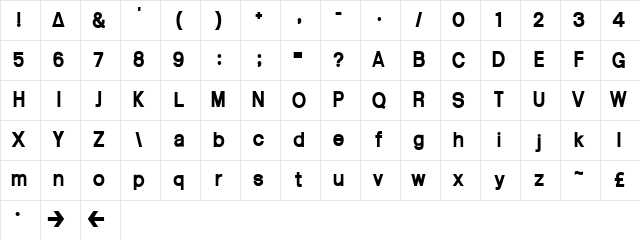
Style: Arctik 5
Foundry: Nathan Caldecott
Designer: Nathan Caldecott
Design Context for Arctik 5
Arctik 5 is a composed and adaptable typeface that performs quietly and consistently across a wide range of design contexts.